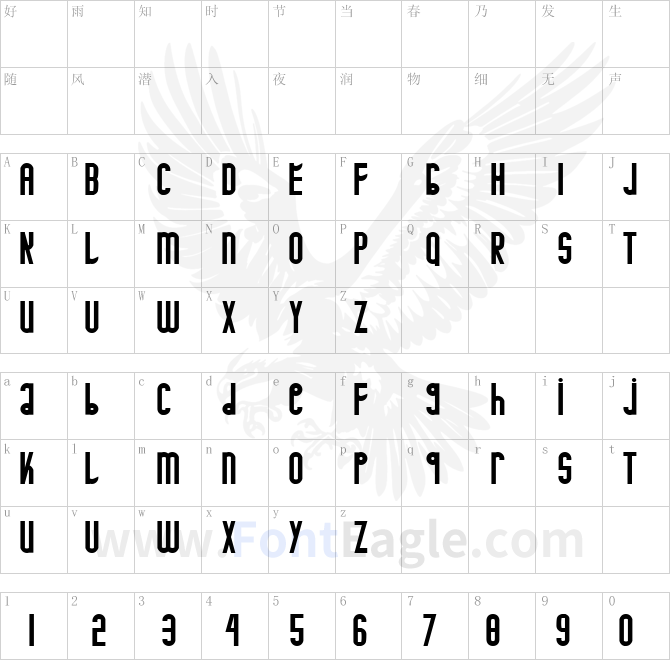
MINOTAURE is a great font, widely used in graphic design, single-page menu design, poster design and other fields, and is deeply loved by designers.MINOTAURE download.